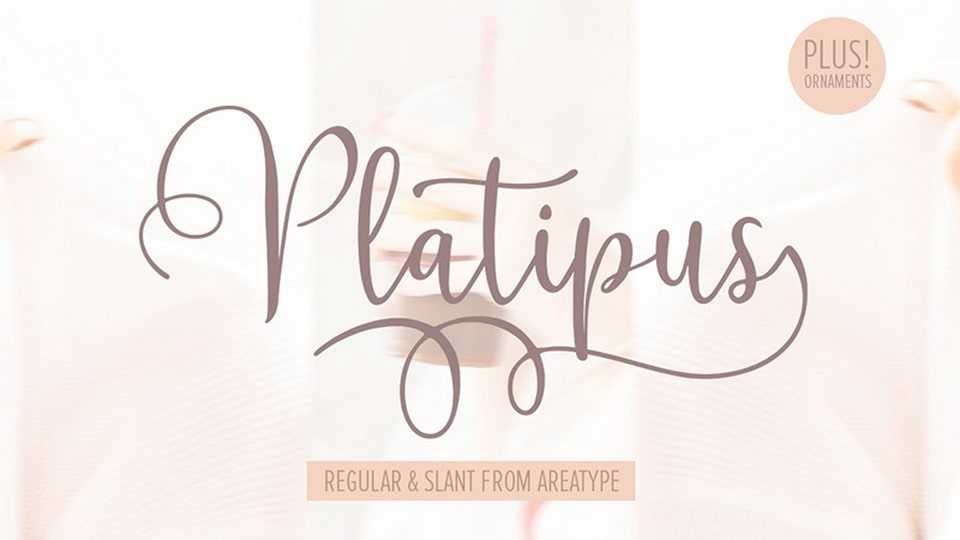
Download Platipus font, a playful and romantic, but also elegant. This versatile script font has a wide range of applications ranging from greeting cards to Valentine’s craft.